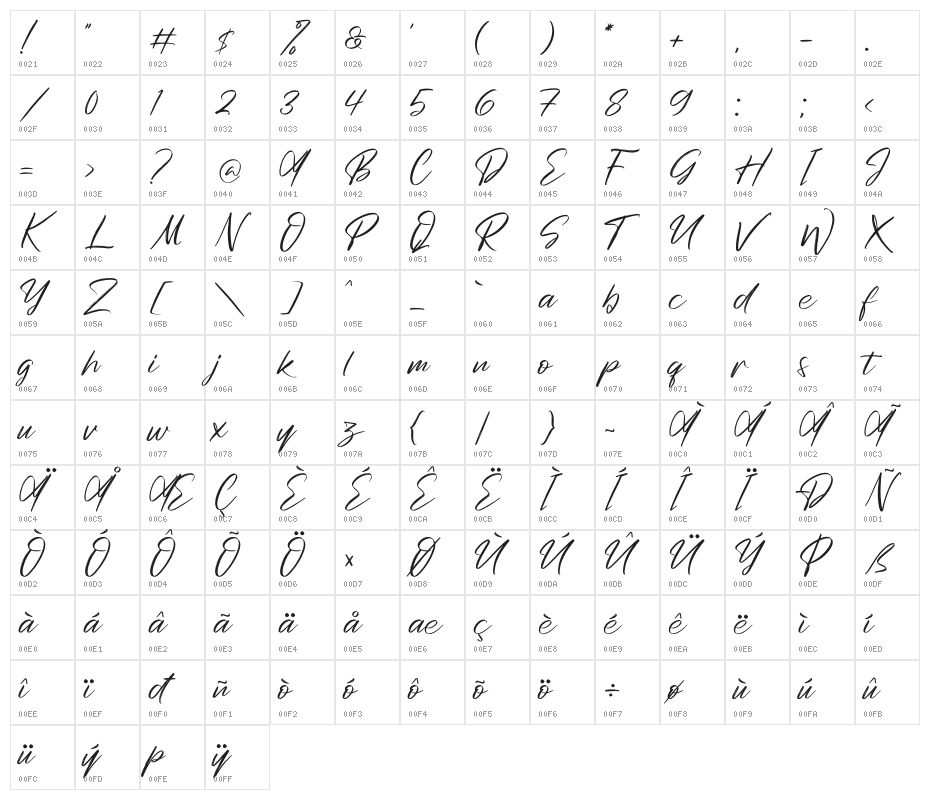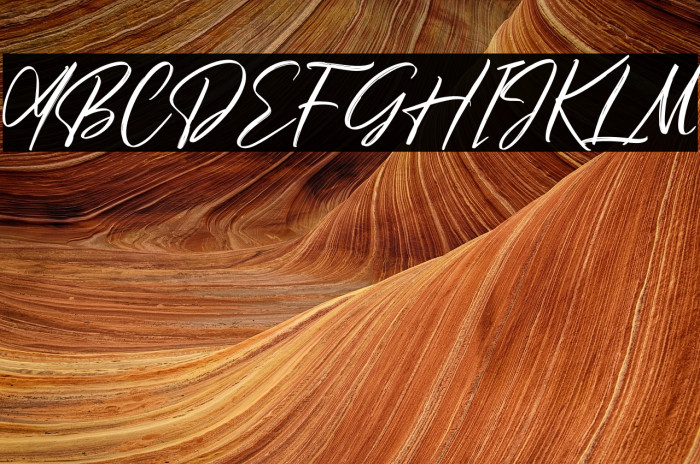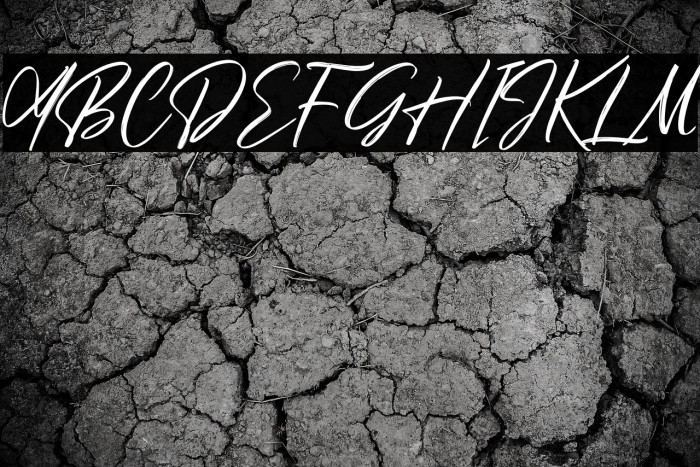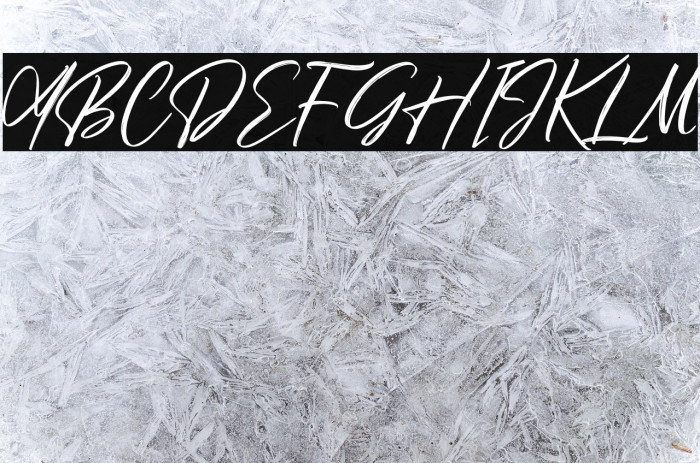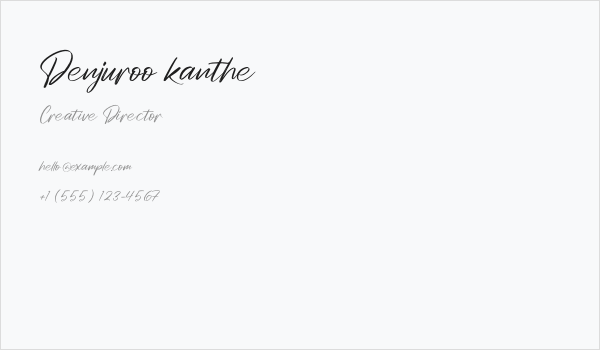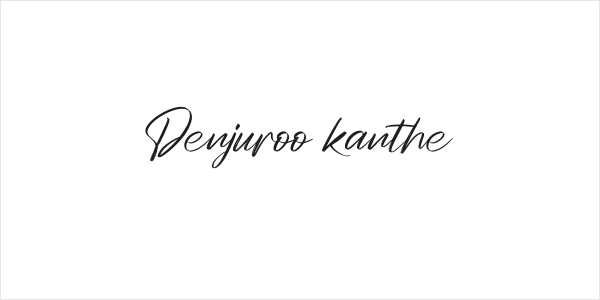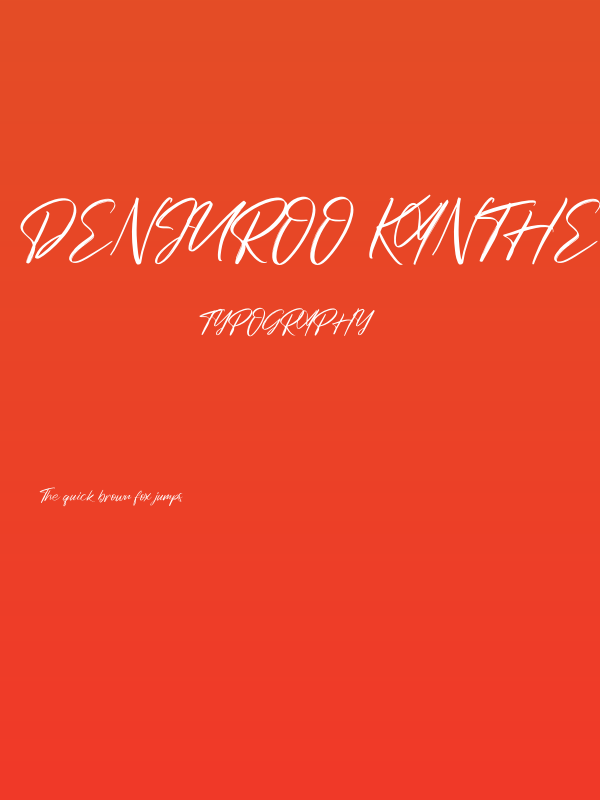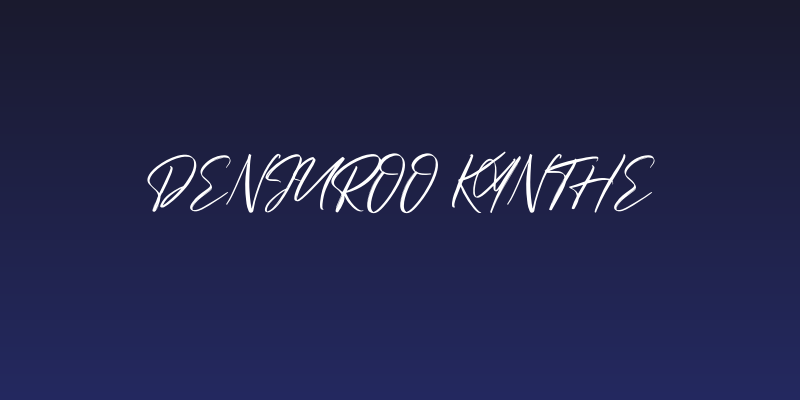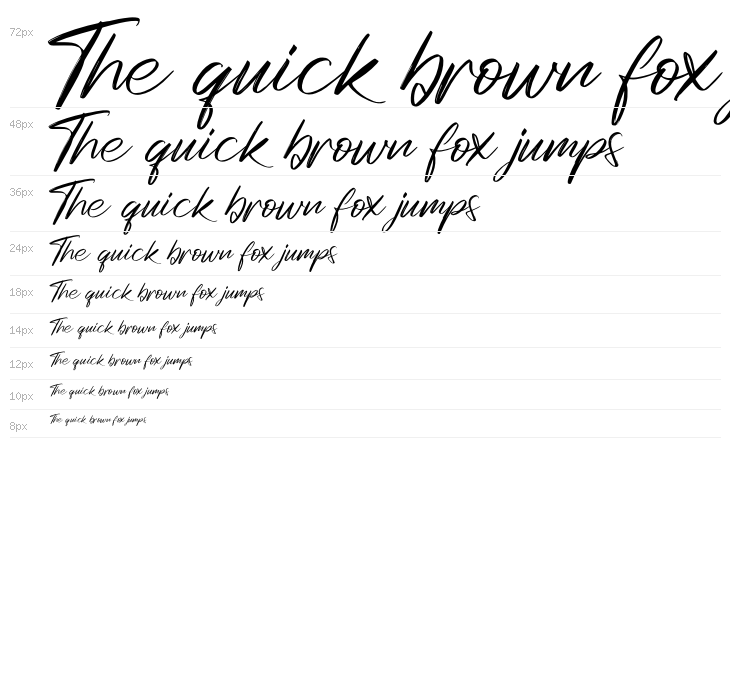
Denjuroo kanthe Font
Denjuroo kanthe Description
This font exudes a dynamic and energetic feel with its flowing, cursive script style. The letters are interconnected, creating a sense of continuity and movement. The strokes are varied, with some letters featuring bold, sweeping lines while others are more delicate and refined. This contrast adds to the overall expressiveness of the font. The uppercase letters are tall and elegant, while the lowercase letters maintain a consistent rhythm, enhancing readability. Numbers and special characters are crafted with the same attention to detail, ensuring a cohesive look across all elements. The font's handwritten appearance makes it ideal for projects that require a personal touch.
| Use Case | Logos, Invitations, Personal branding |
| Proposed Projects | Ideal for wedding invitations, greeting cards, branding projects, and any design requiring a personal, elegant touch. |